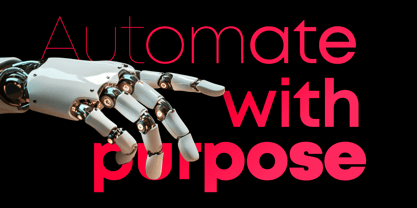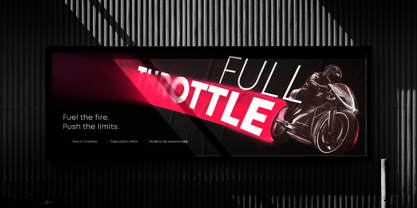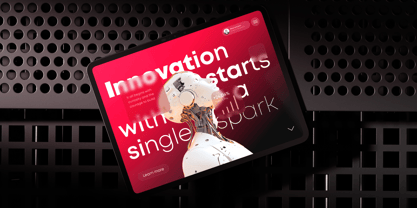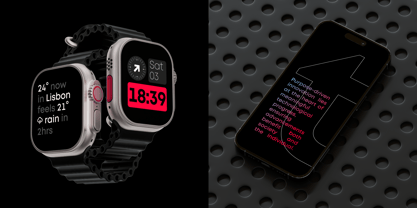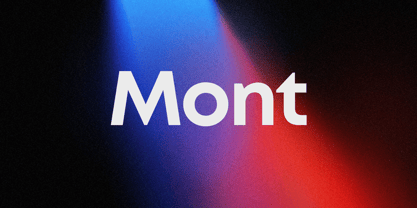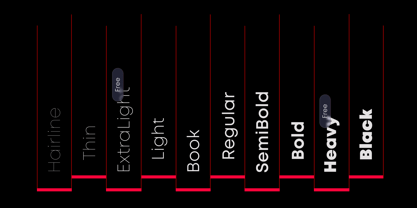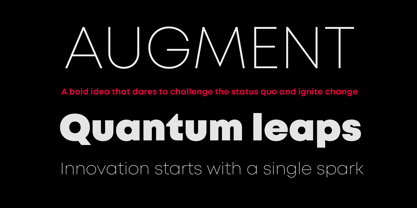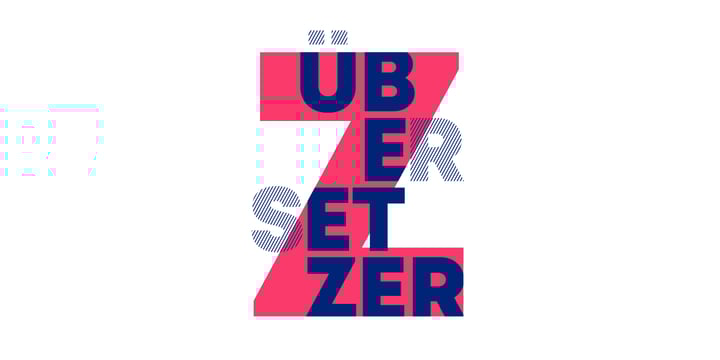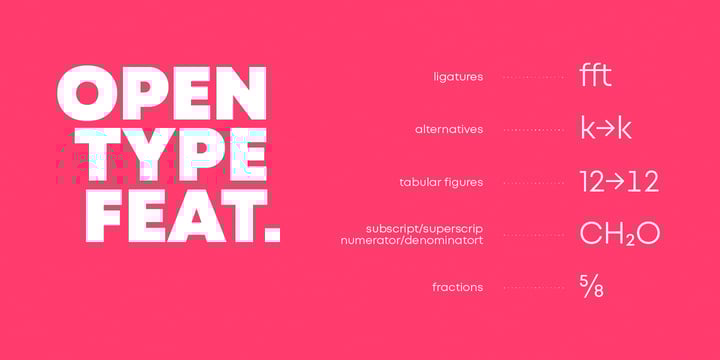
Mont™
by Fontfabric
Features:
• 744 glyphs in 20 styles; • Extended Latin, Cyrillic and Greek; • Perfect for headlines and logos; • Prominent x-height; • Distinctive pointed triangular bracketed “t”; • Coverage of multiple OpenType features; • Suitable for web, print, motion graphics etc.
Mont
is a geometric sans serif consisting of 10 weights ranging from Hairline to Black with matching italics. It supports Extended Latin, Cyrillic and Greek —
more than 130 languages
all together. The balanced characteristic of Mont with unique details, such as the pointed “t” and the prominent x-height makes it perfect for strong headlines and outstanding logos, but also suitable for long text. Mont comes with a range of
OpenType features
— including tabular figures, advanced typographic features such as
ligatures, fractions, case-sensitive forms, superscripts, subscripts etc.
Designers: Svetoslav Simov, Mirela Belova